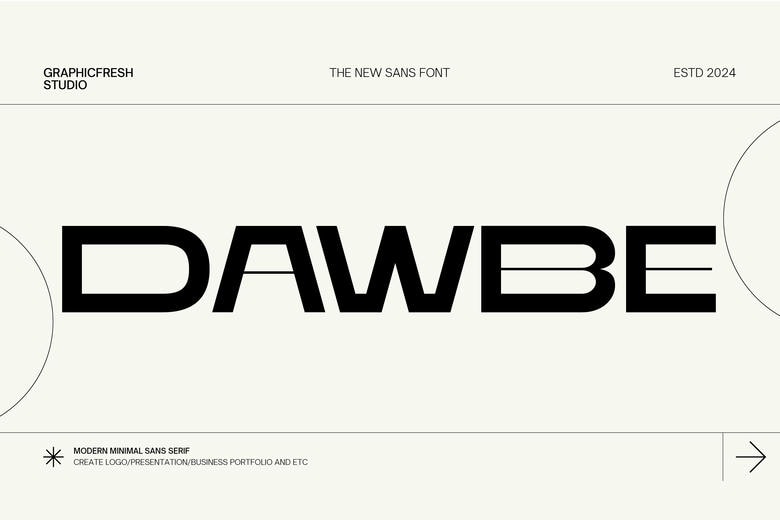
Dawbe Font
Dawbe is a clean cut sans-serif typeface in some ways inspired by modernism, which is functional and simple and suitable for a wide range of uses but has a certain strength and understated elegance which helps to give it a more dignified look. Its minimalist and technically precise design, its free-from curves and rounded shapes makes it perfect for any modern design.
Although designed for the creation of logos, presentations, business portfolio’s, and other branding tools, the overall feel and look of “Dawbe” is professional, stylish and representative of today’s modern standards.
Dawbe Sans Serif Font